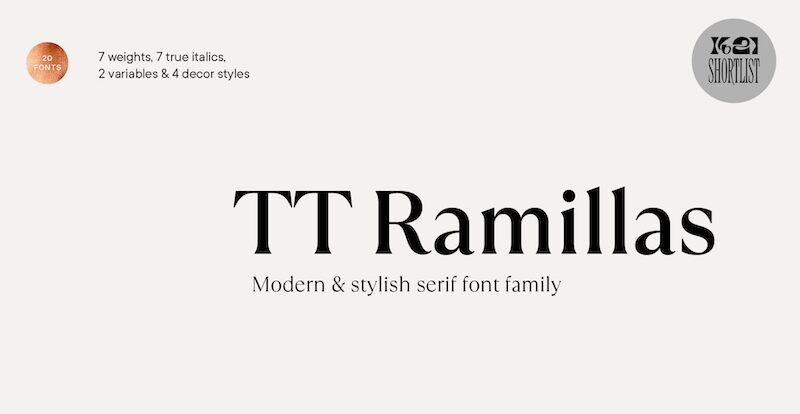
TT Ramillas font
TT Ramillas
TT Ramillas is a fully reconsidered high contrast transitional serif, which is perfectly adapted to modern realities and requirements.
This font is perfect for use in magazines, in the fashion industry, in the branding of premium goods and services. TT Ramillas is quite versatile and suitable for use both in headings and in text arrays. In addition, we have done manual hinting in the typeface, and now it can be used with a clear conscience in the web and applications.